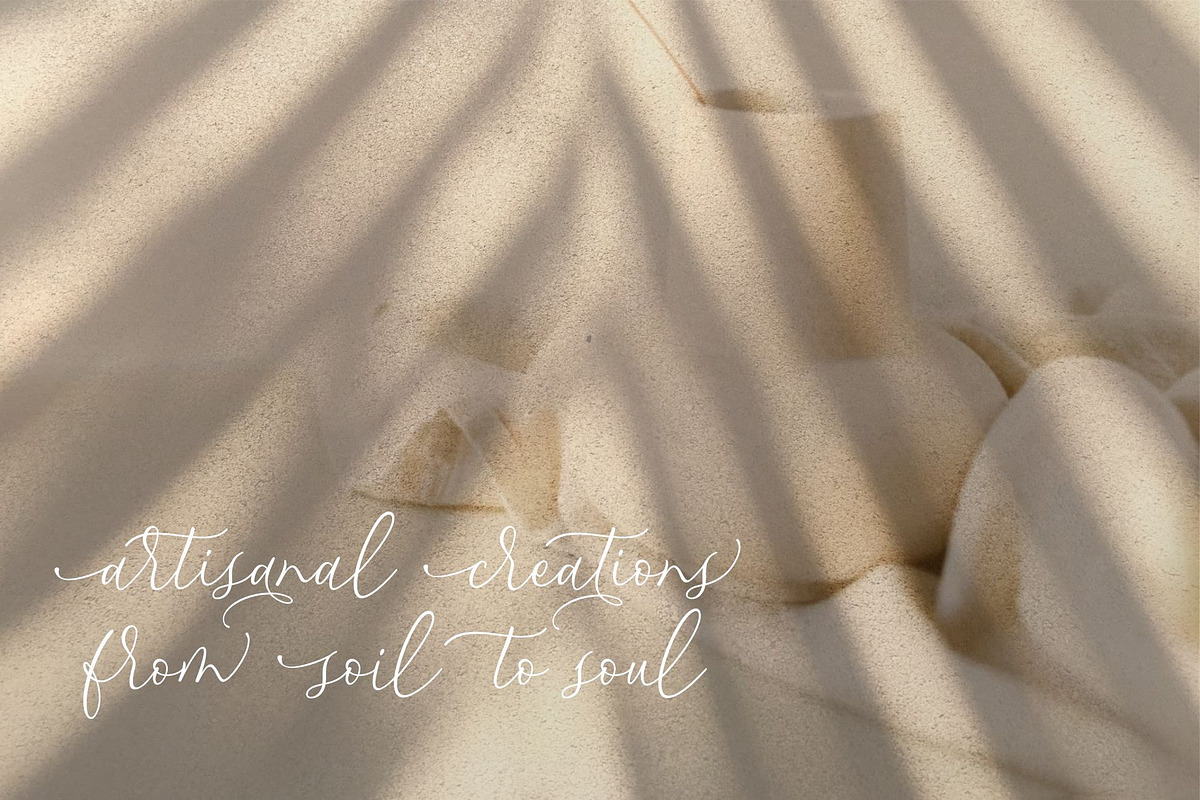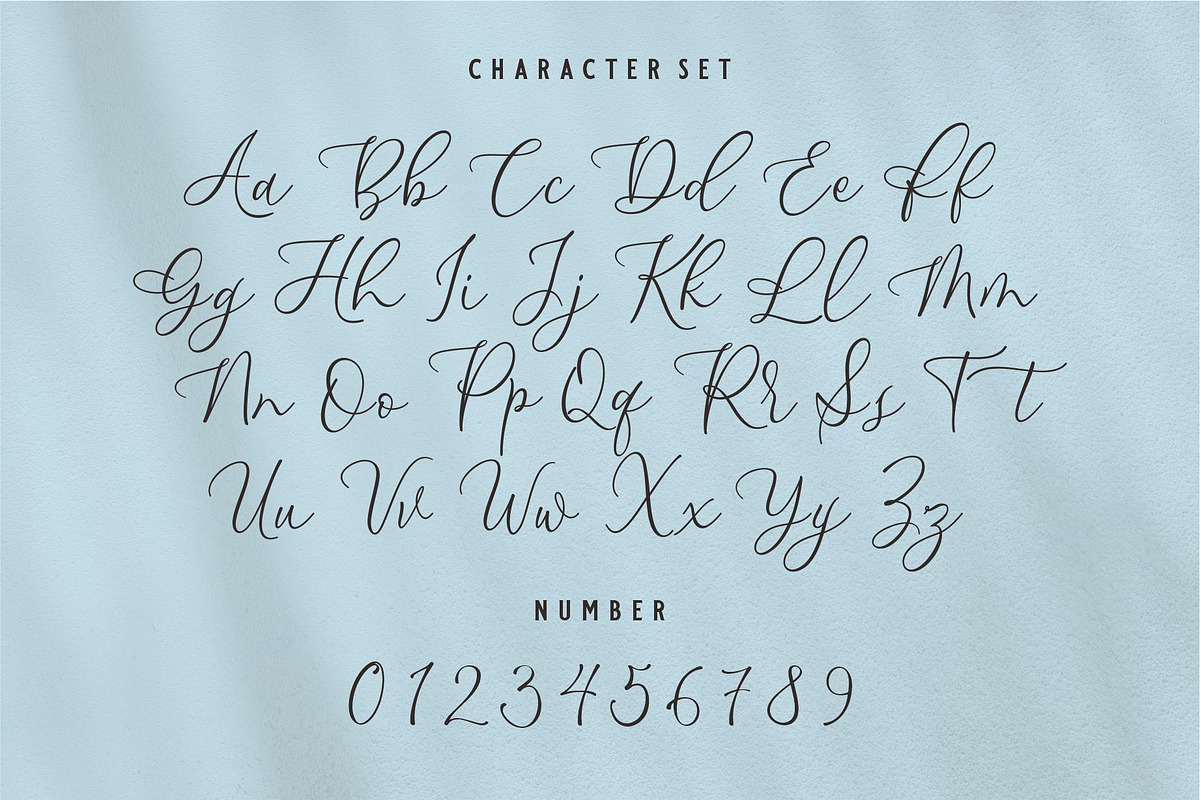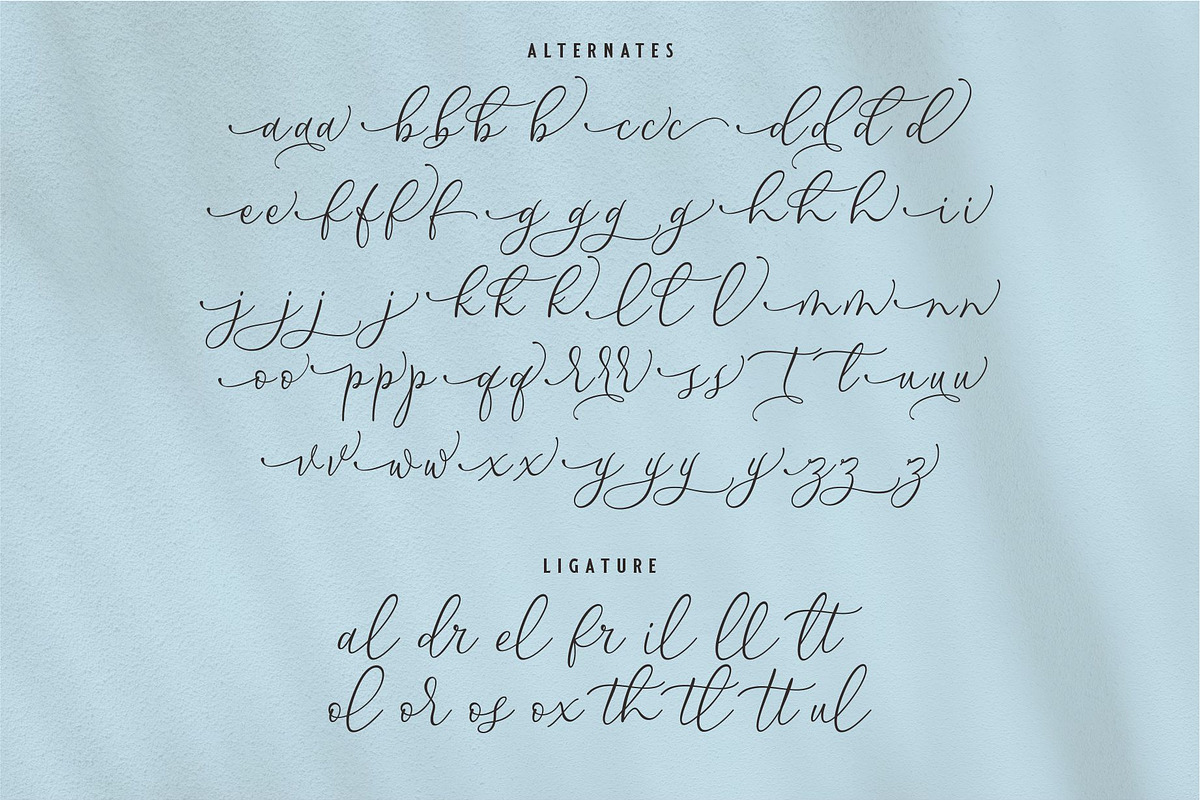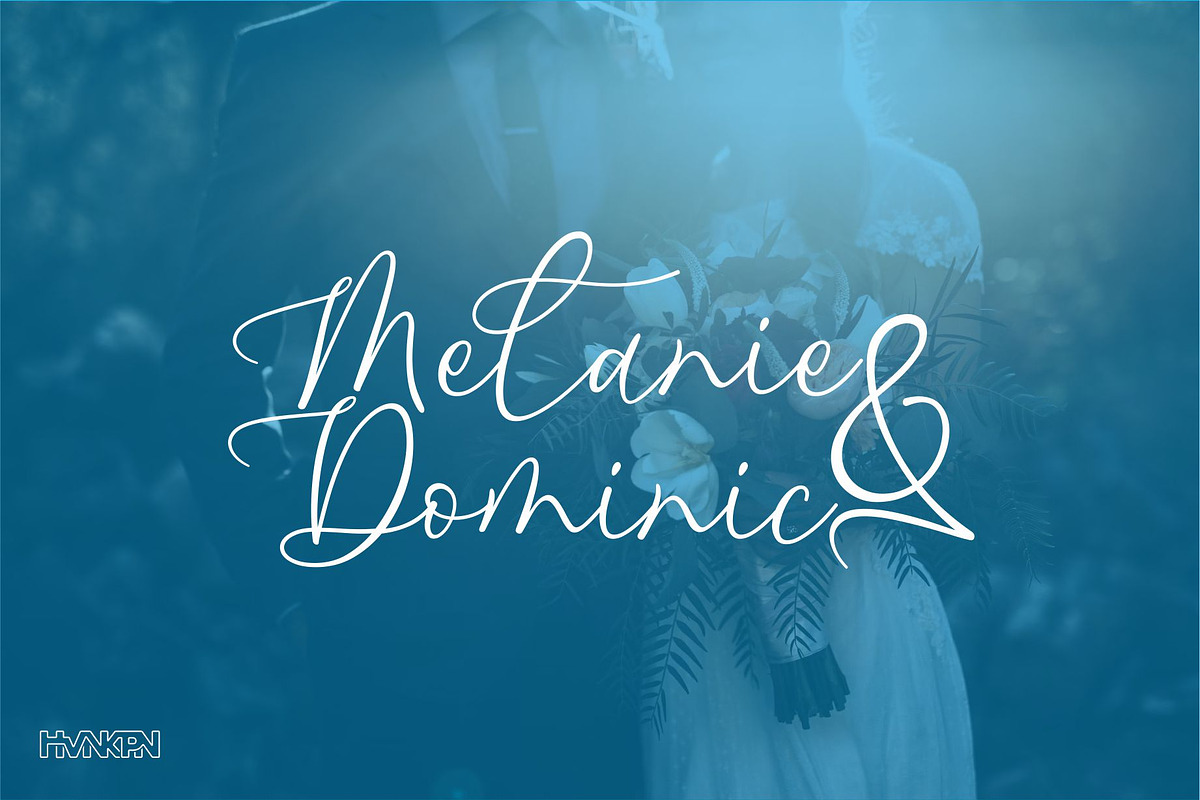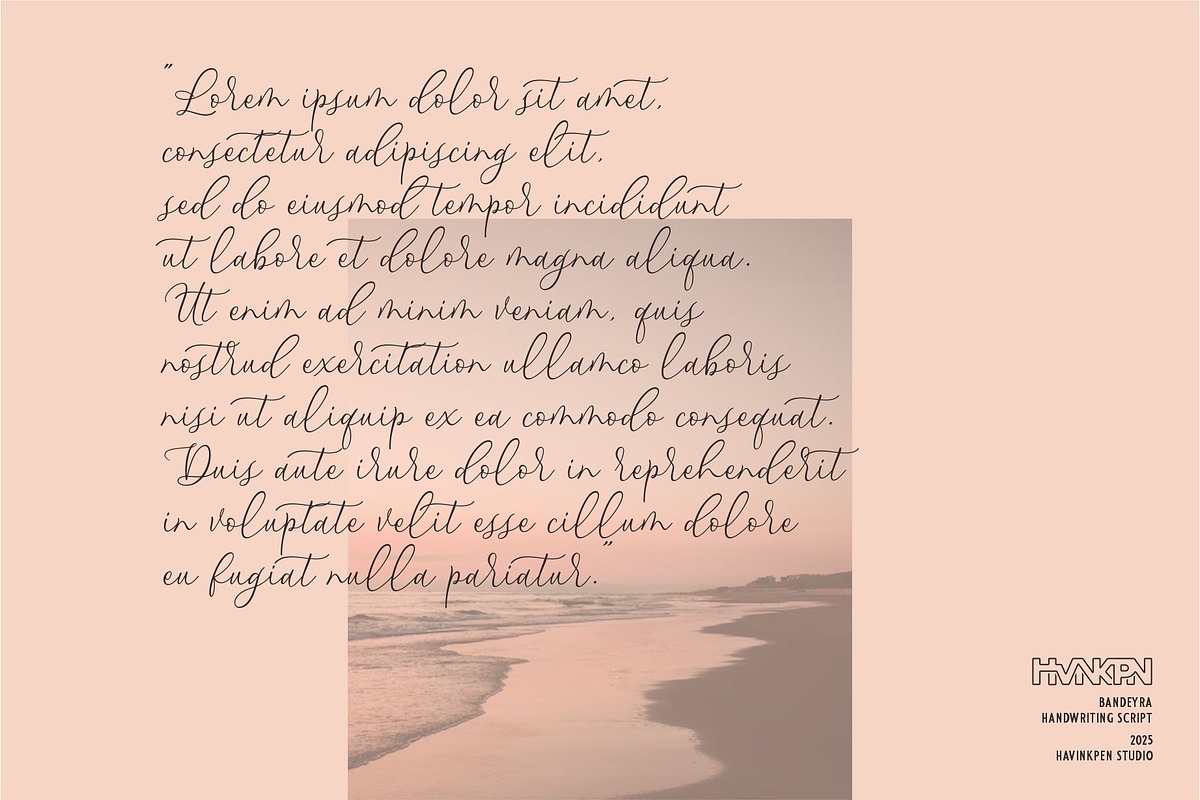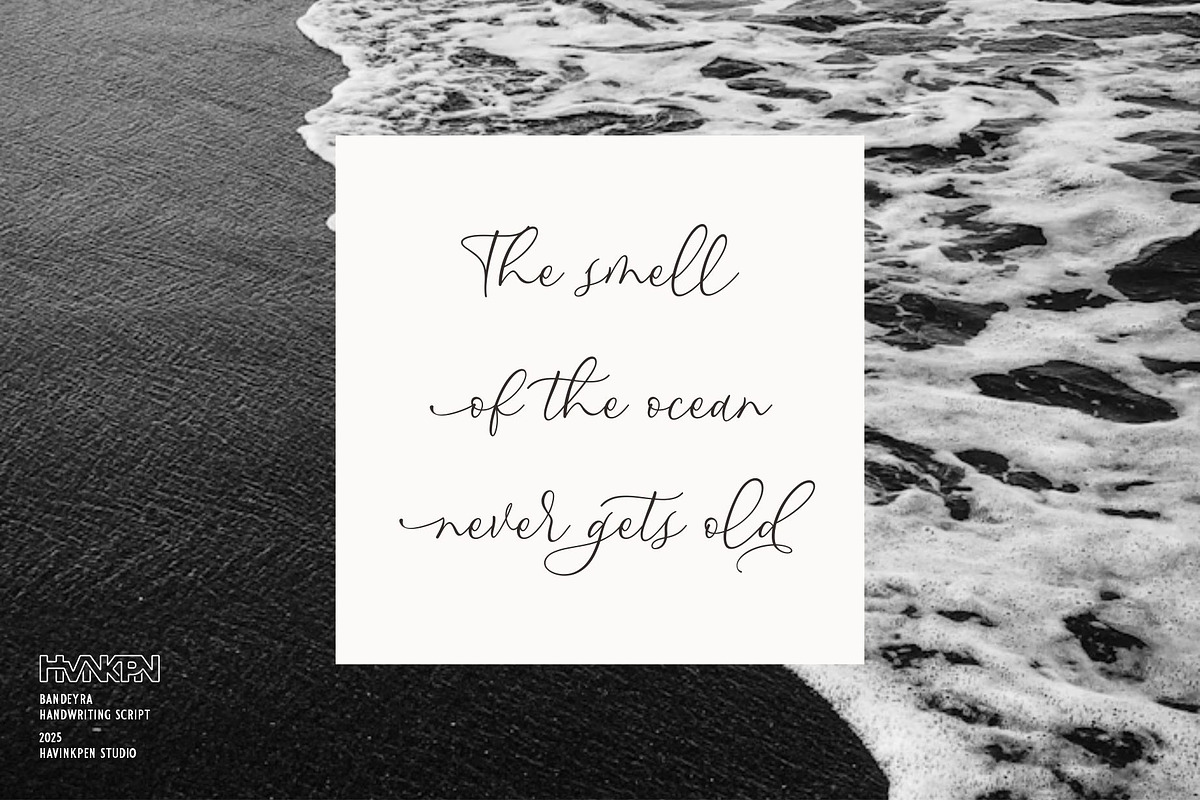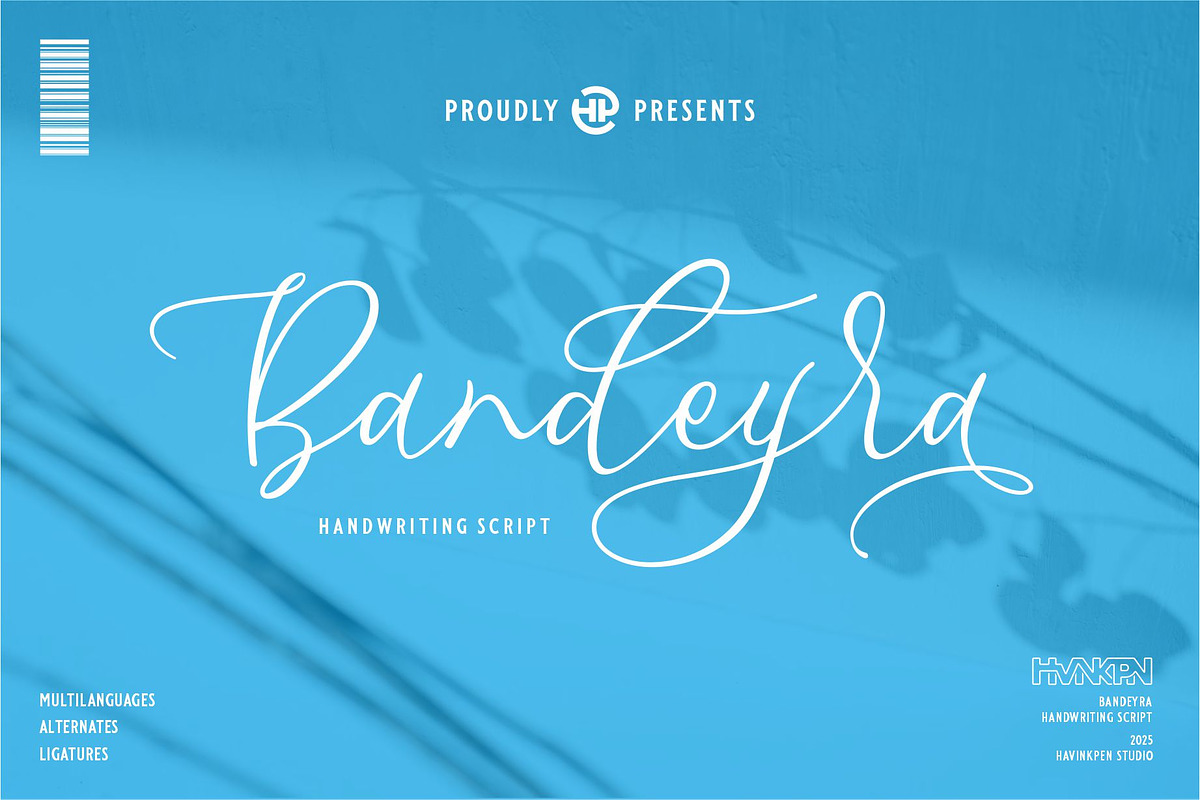
BANDEYRA | Handwriting Script
Introducing Bandeyra, a sophisticated handwriting script that beautifully blends classic charm with a modern touch. Each stroke is carefully crafted to create a natural, fluid, and graceful look—perfect for designs that need a personal and luxurious touch. Designed to capture the elegance and warmth of natural handwriting, comes with a wide range of stylistic alternates and ligatures to give your text a more authentic handwritten feel. Bandeyra brings a graceful flow and timeless appeal to your creative projects.
• Logo & Branding
• Product Labels
• Posters & Quote Typography
• Invitations & Greeting Cards
• Merchandise & Apparel Design
• Social Media & Packaging